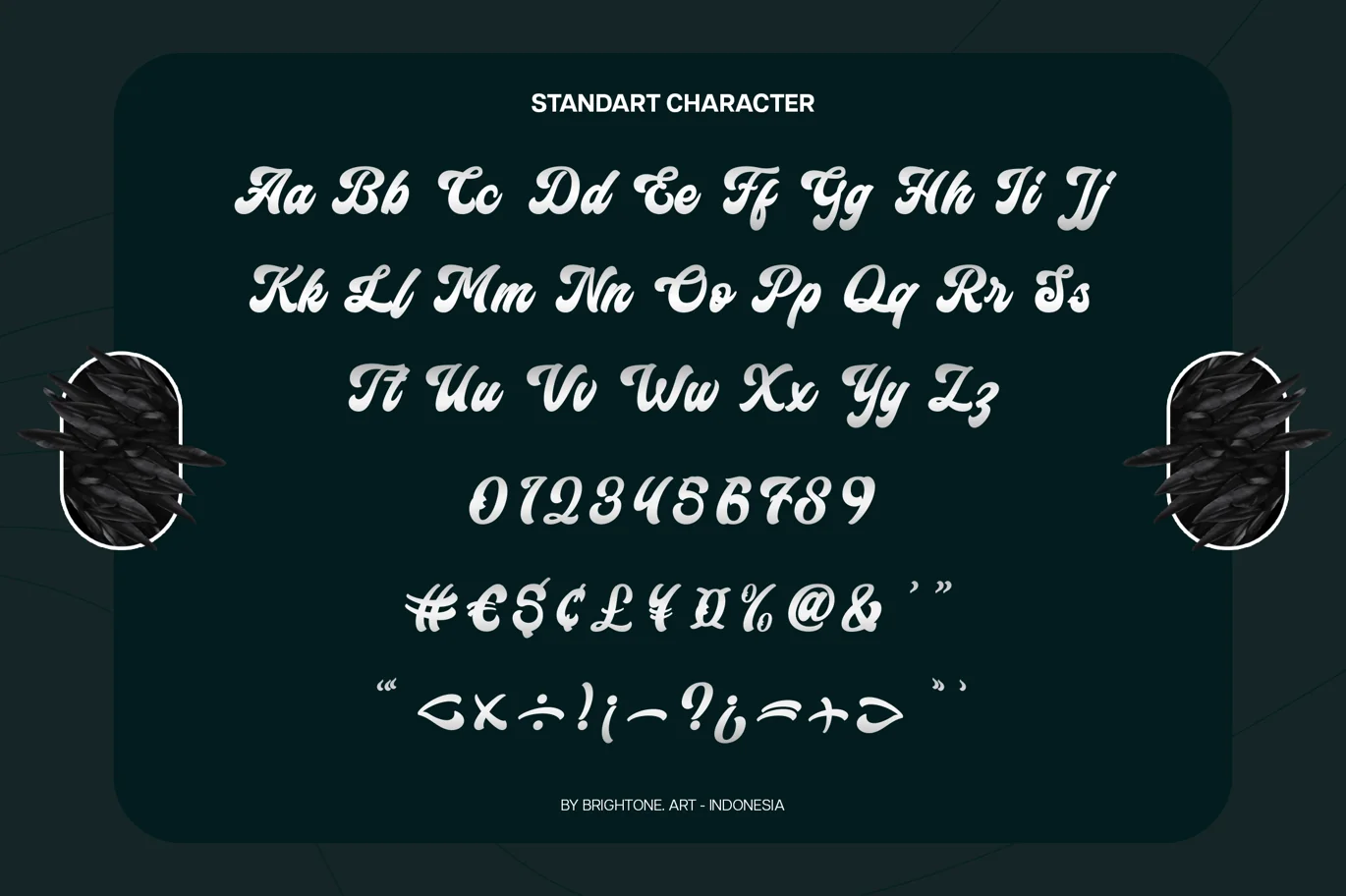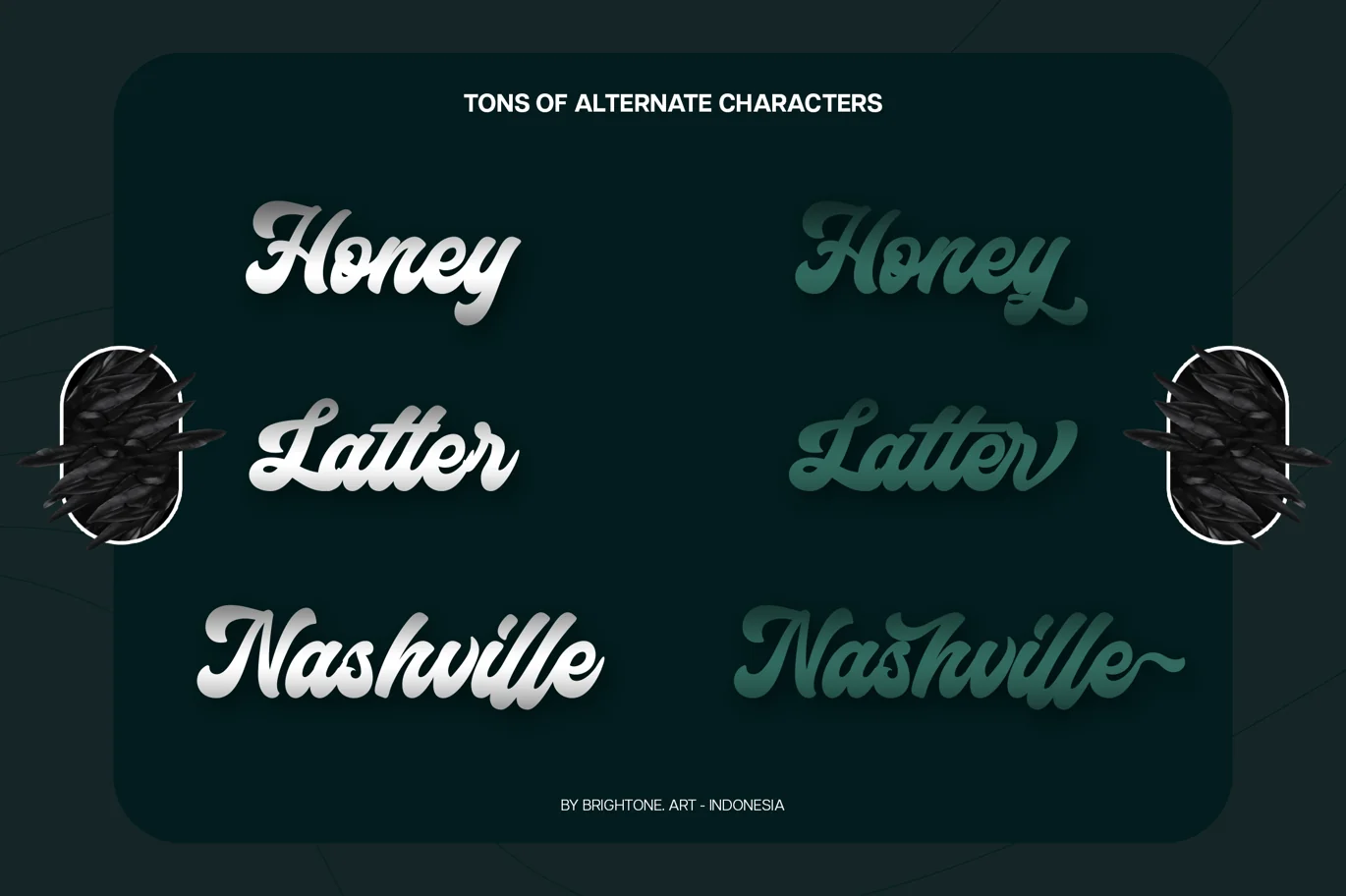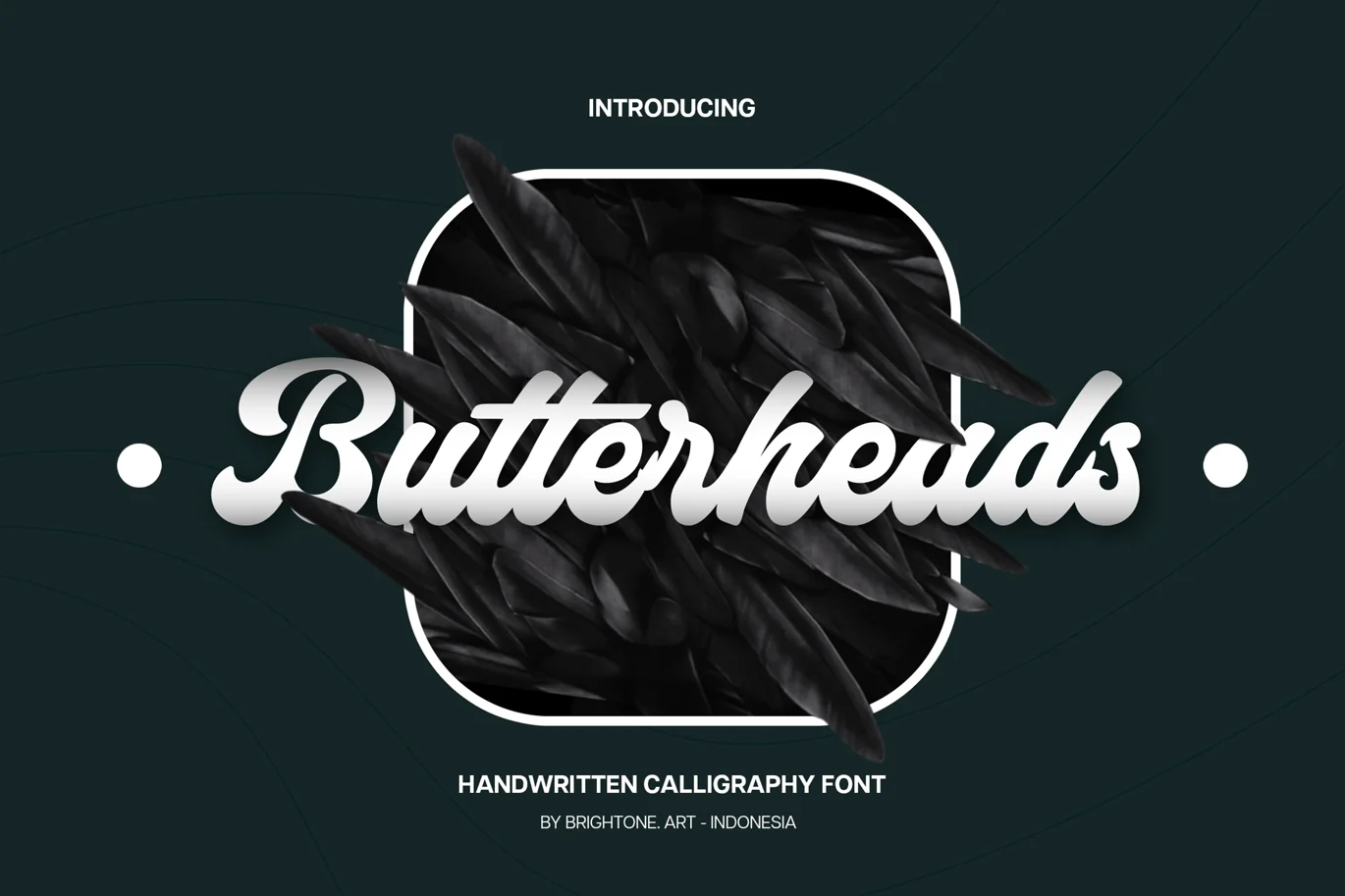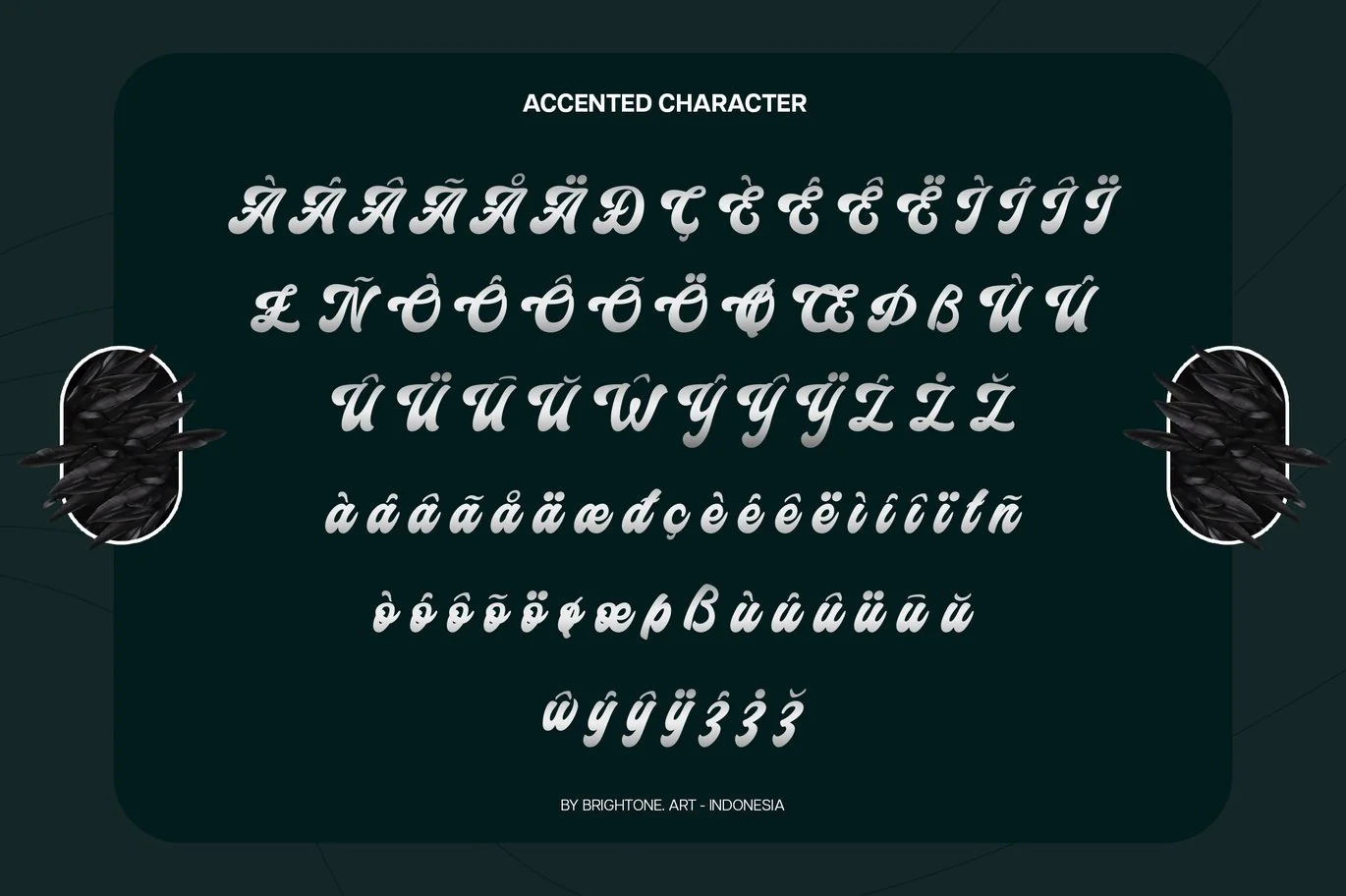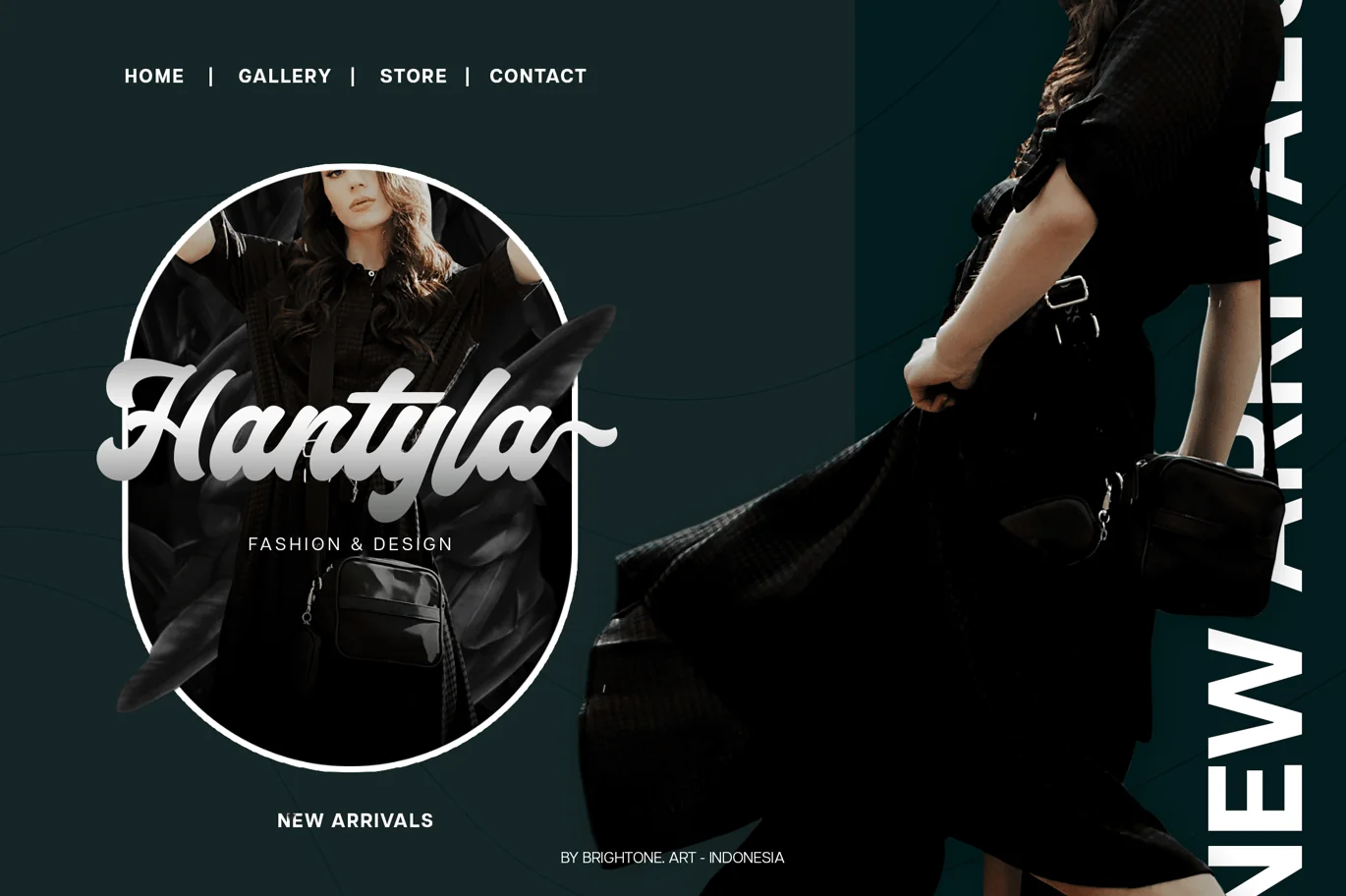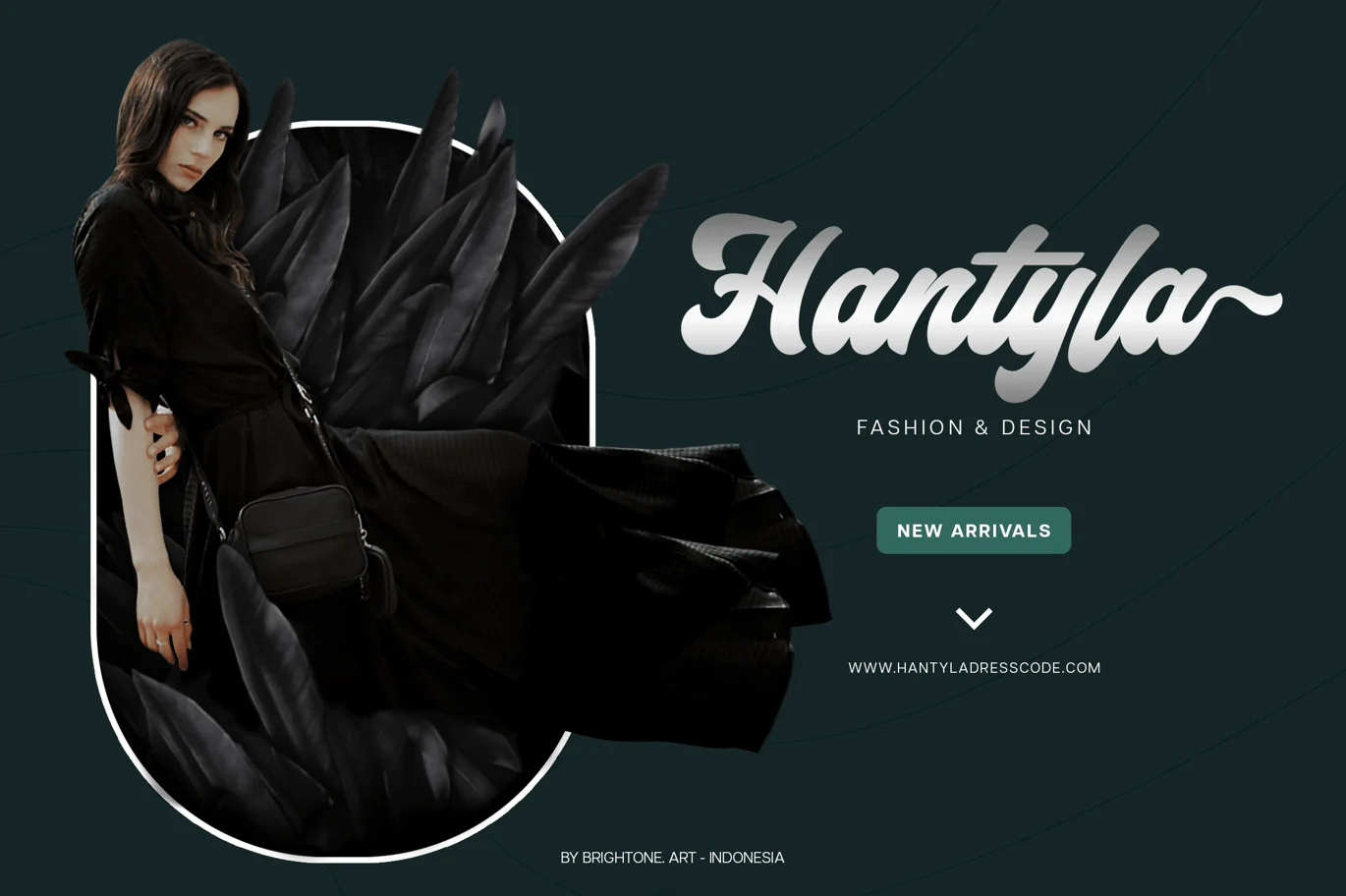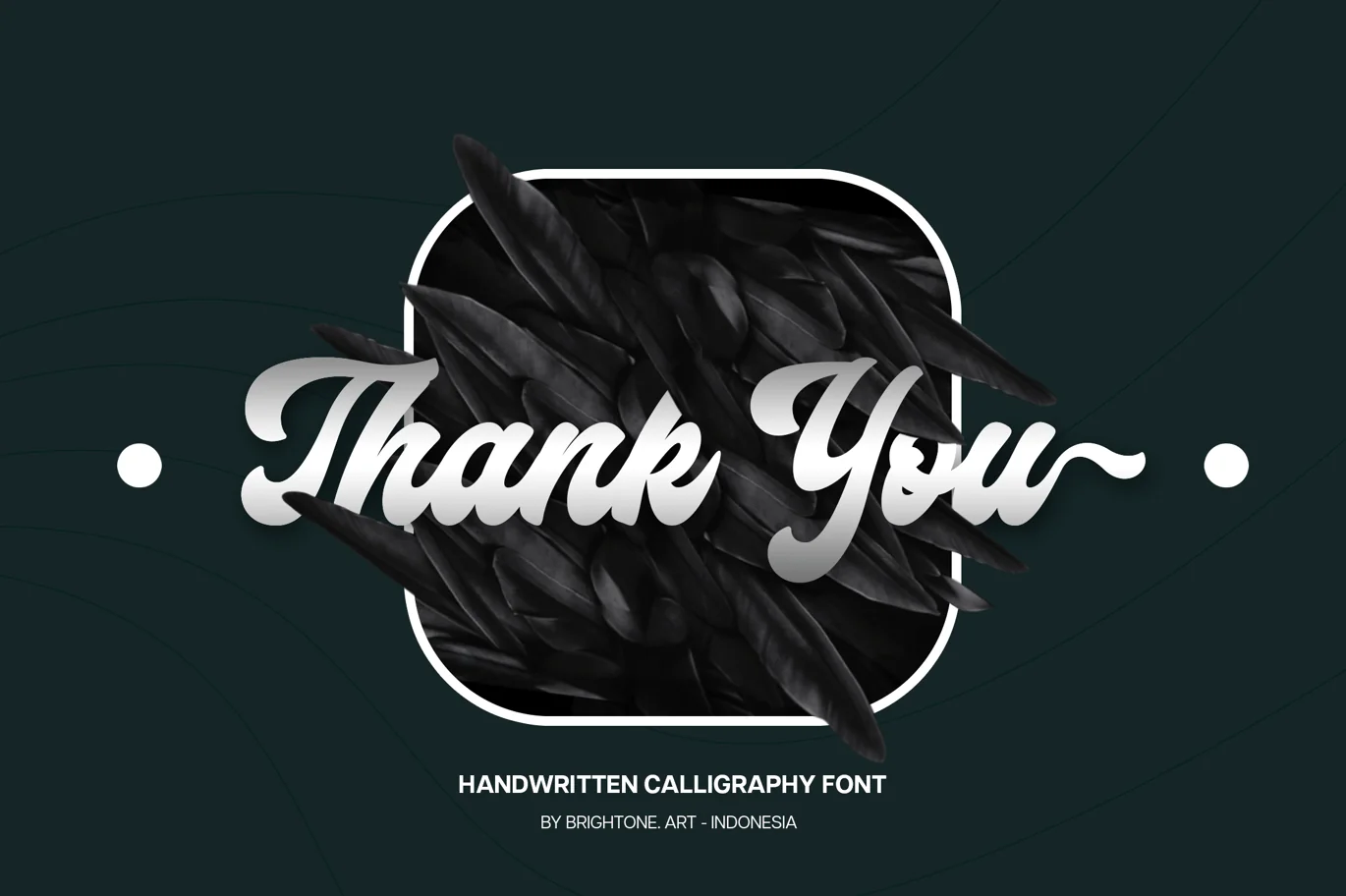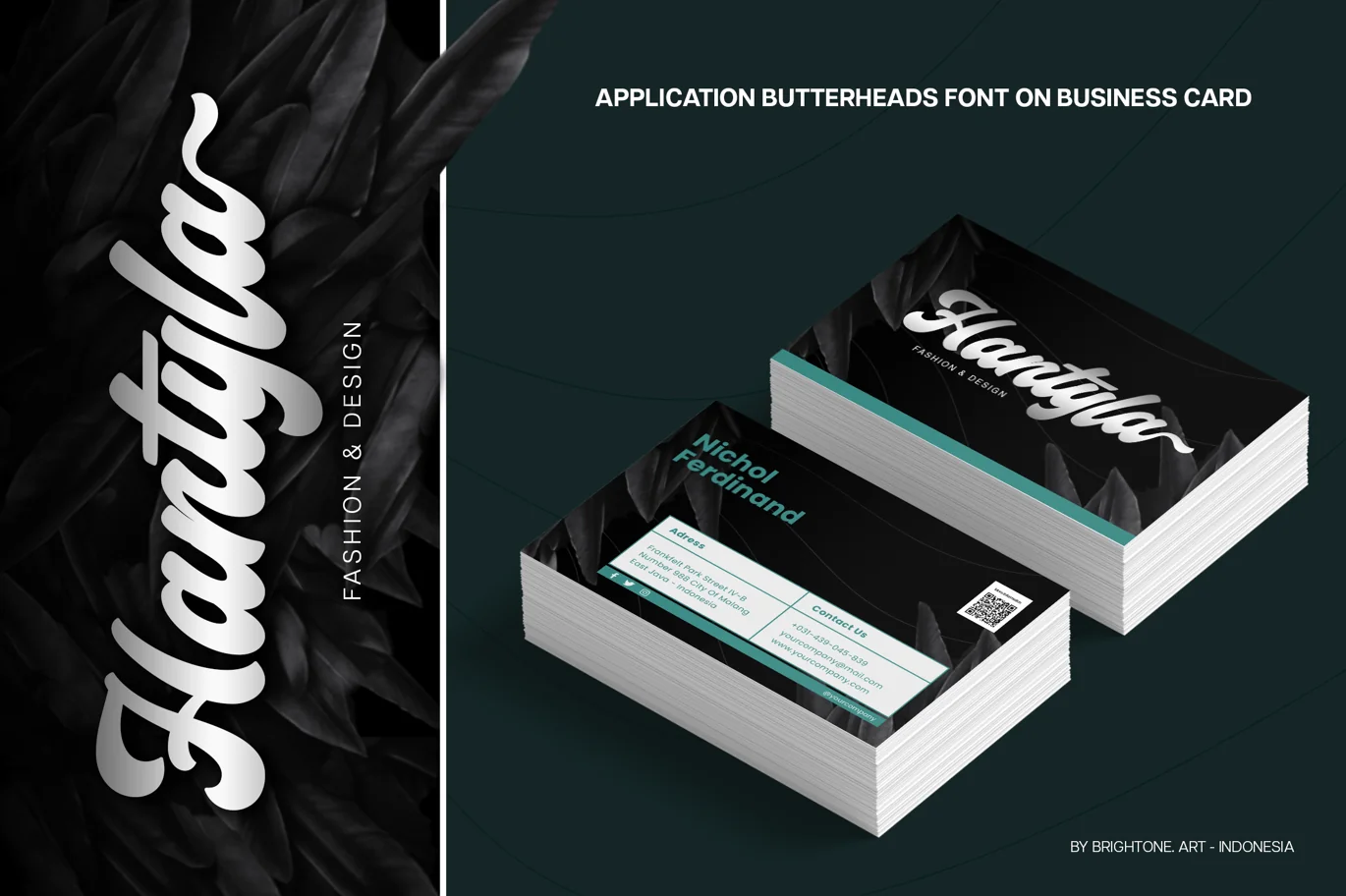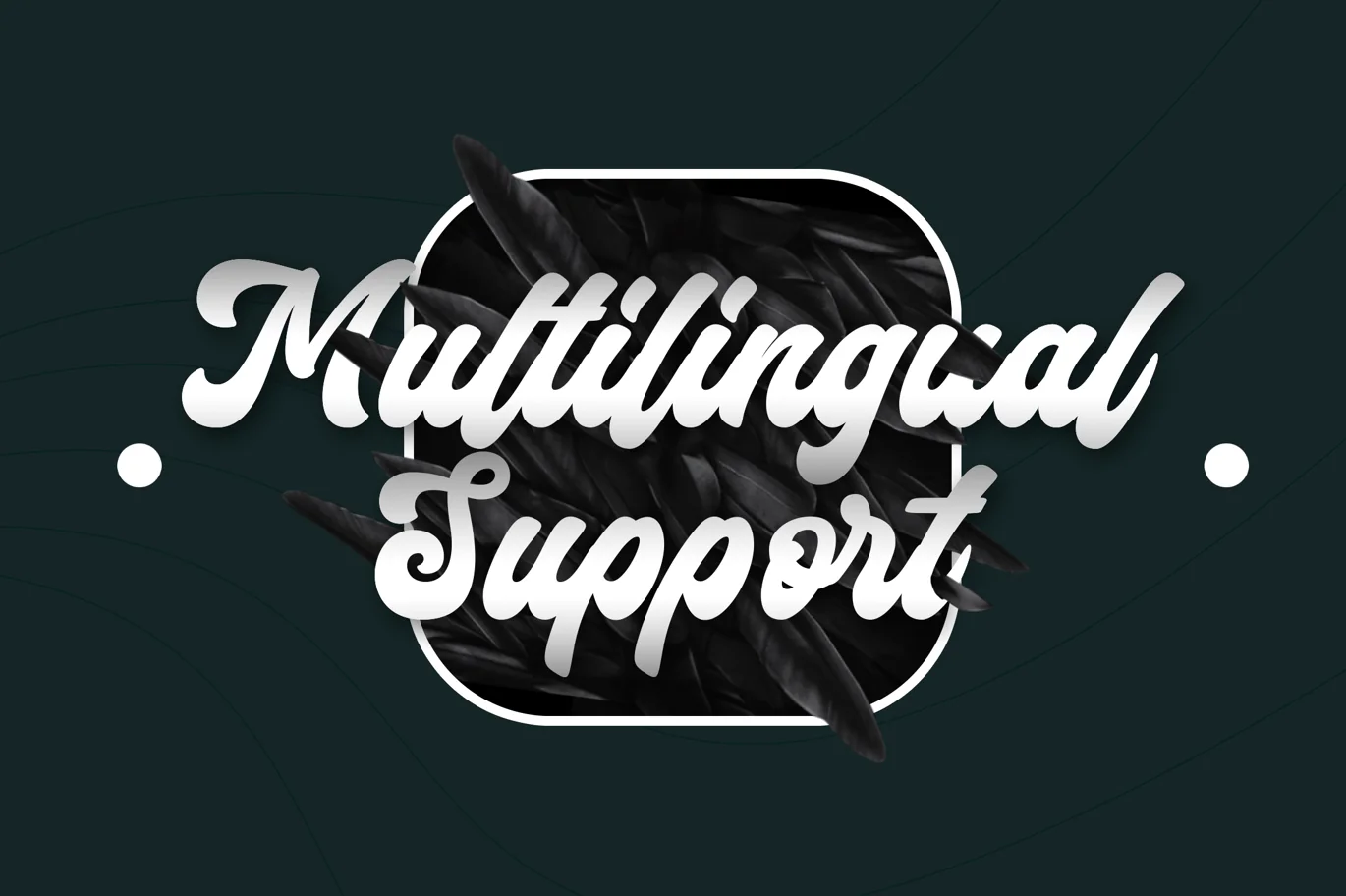
Butterheads – Handwritten Calligraphy Font
Butterheads
is handwritten script font adapt from classic and modern script calligraphy font style includes:
- Uppercase and Lowercase characters
- Numbers and Punctuation
- Multilingual Support (Eastern, Central and Western European countries)
Handwritten script calligraphy font style for your logo lettering, logo, label, packaging, sticker, branding and many more